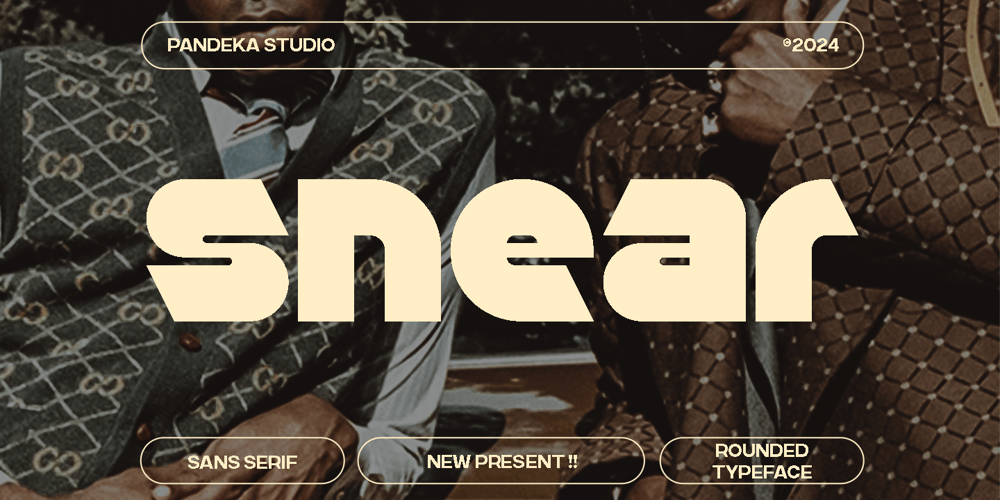
Snear
Snear Font Family was designed by Sagara Nararya and published by Pandeka Studio. Snear contains 1 styles and family package options. Introducing Snear! An Display typeface with mid century feeling.Snear is a sans-serif typeface with a heavy touch. The concept is a big x-height and small ascender. This font is perfect for branding, titling, headline, and more.Features: Snear Main Files Instructions (Access special characters in all apps, even in Cricut Design) Accessible in Adobe Illustrator, Adobe Photoshop, Microsoft Word even Canva! PUA Encoded Characters. Fully accessible without additional design software Feel free to follow, like and share. Thanks so much for checking out my shop!Pandeka Studio